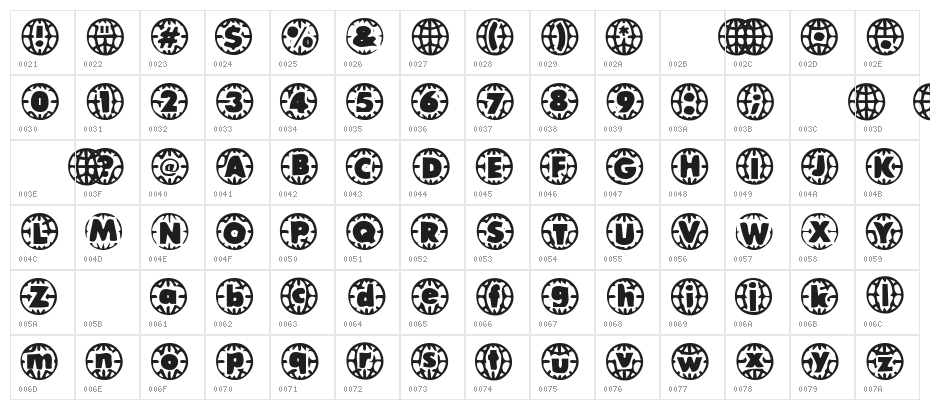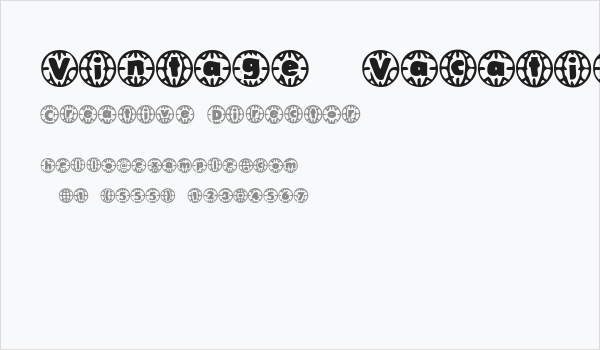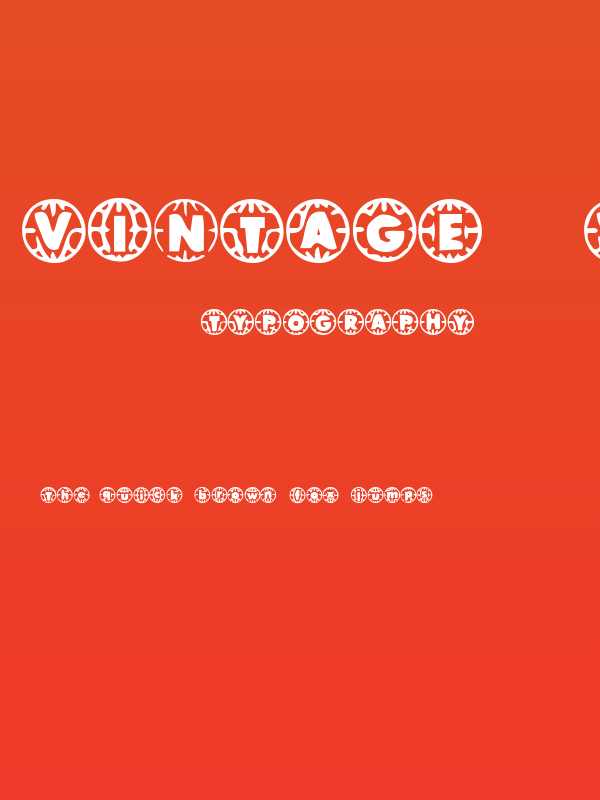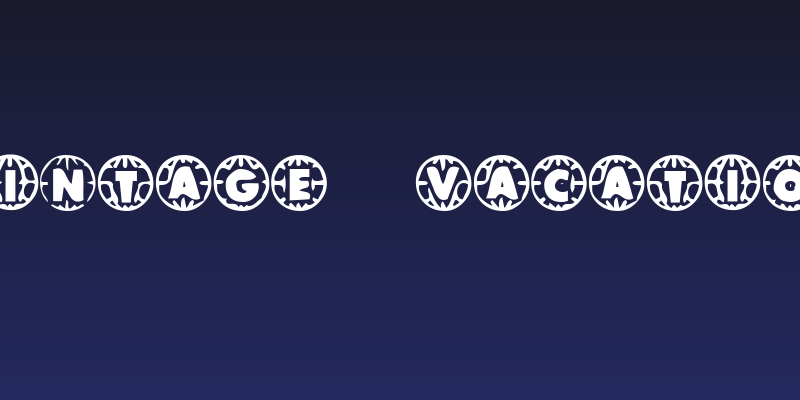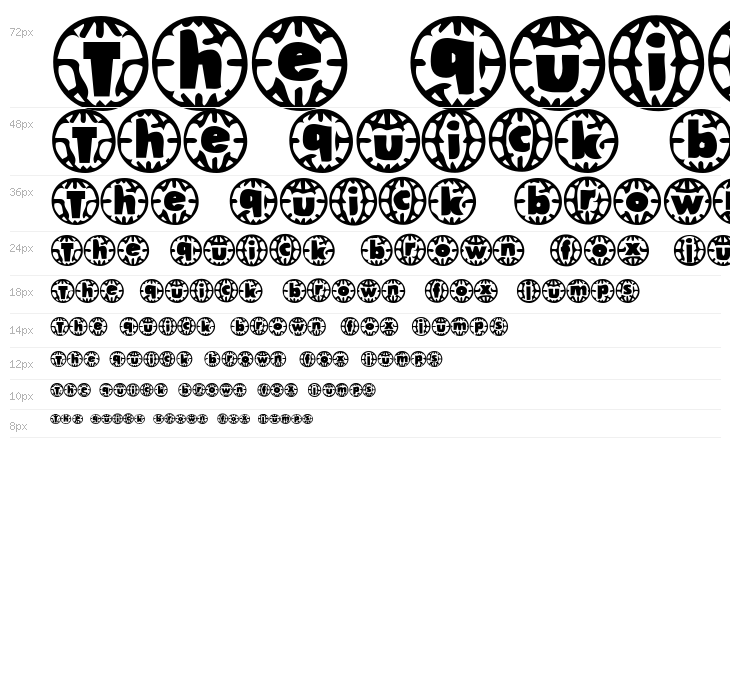
Vintage Vacation Font
Vintage Vacation Description
This font features a playful and decorative style, with each character enclosed in a circular border that resembles a vintage vacation theme. The letters are bold and have a whimsical, hand-drawn appearance, with unique cut-out patterns that add to the retro aesthetic. The numbers and special characters follow the same design, maintaining consistency across the set. This font evokes a sense of nostalgia and fun, making it ideal for projects that aim to capture a vintage or retro vibe.
| Proposed Projects | Ideal for retro-themed posters, travel brochures, vintage product packaging, and playful branding. |